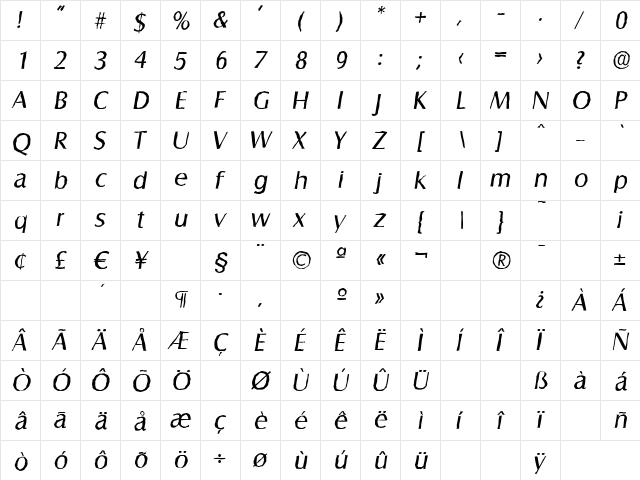
SalzburgAntique Italic
Design Context for SalzburgAntique Typeface
SalzburgAntique has the warm character of retro typography — evoking diners, record sleeves, and the golden age of print advertising. The dynamic lean of this cut emphasises speed and emphasis in any layout.
Ideal for diner signage, record shop branding, 70s/80s-themed projects, and heritage product labels.
Font Pairing: Combine SalzburgAntique with a simple slab or neutral sans — period-accurate companions reinforce the vintage feel without competing for attention.
Pro Tip: Lean into SalzburgAntique's period character by pairing it with aged paper textures, muted colour palettes, and vintage illustration styles.